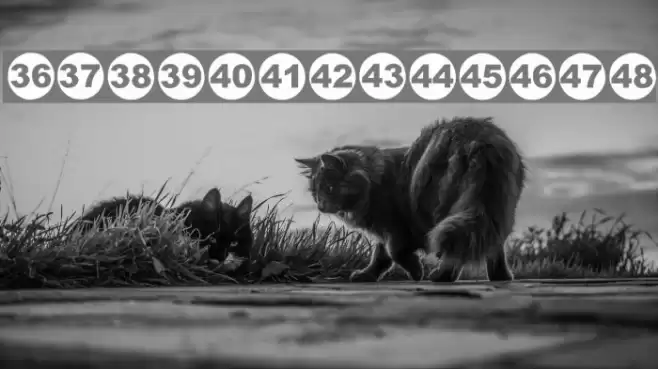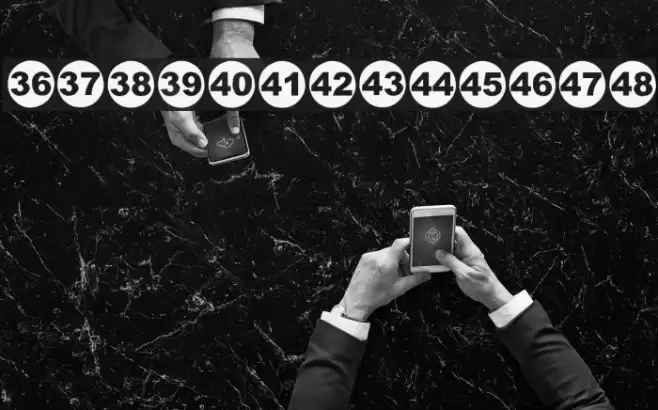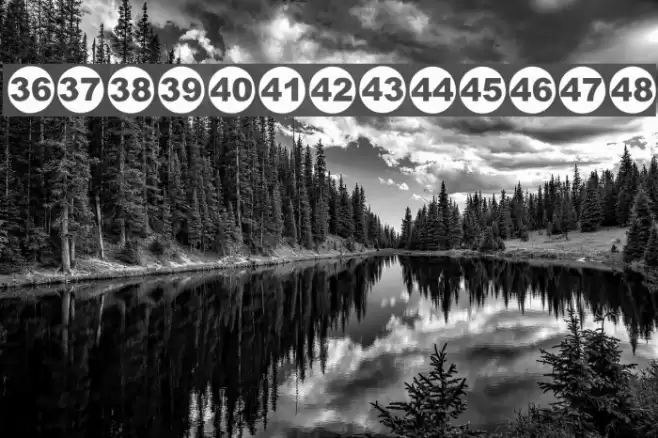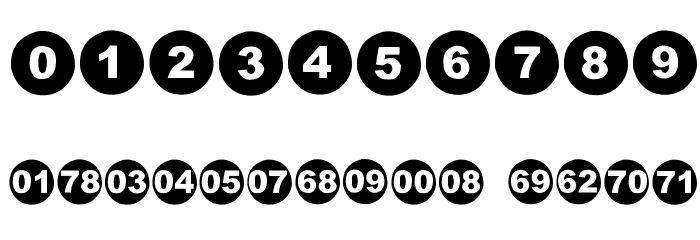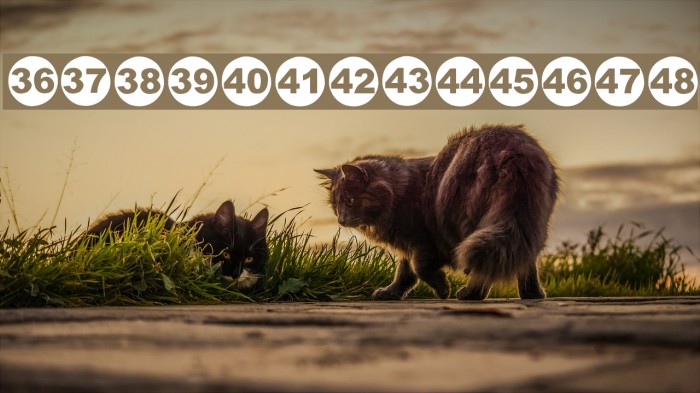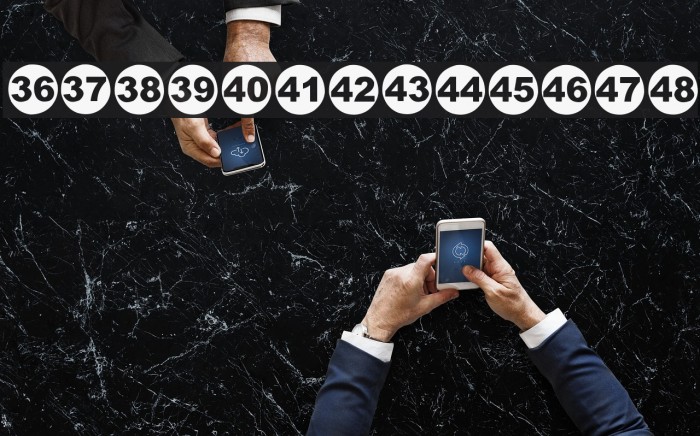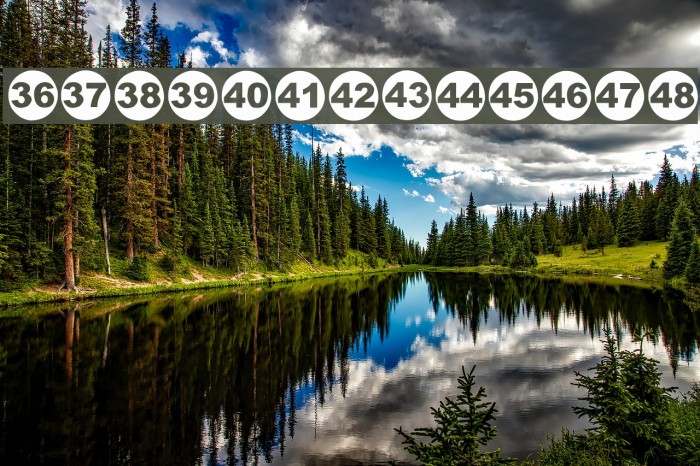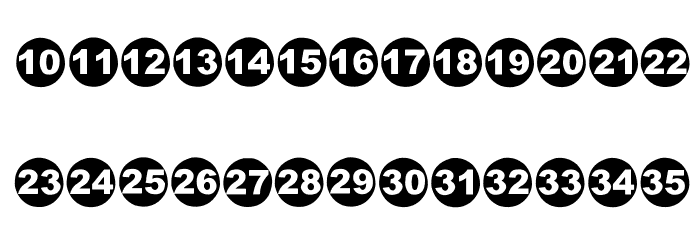
Numbaaz-EEN Font
Numbaaz-EEN Description
This is a bold, modern font that features numbers encased in solid black circles, creating a striking and impactful visual. Each numeral is centered within its circle, providing a uniform and cohesive look. The font is designed to be easily readable while maintaining a unique style that stands out. The boldness of the numbers ensures high visibility, making it suitable for various applications where clarity and emphasis are needed. The consistent use of circles around the numbers adds a decorative element, making it ideal for creative and playful projects.
Bold, modern font with numbers in black circles for high visibility from Decorative fonts.
- Proposed Projects: Ideal for posters, signage, educational materials, and any project requiring clear numerical emphasis.
- Use Case: Headlines, Logos, Signage